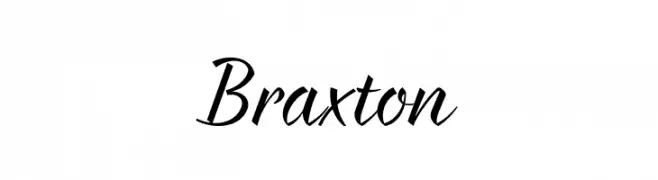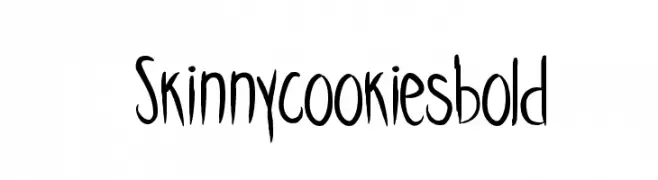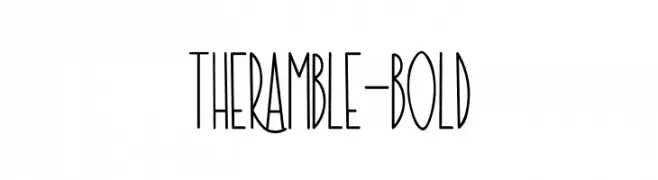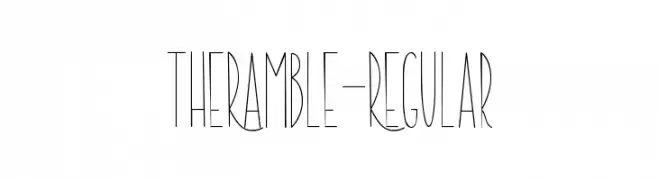
A classic, elegant font with a modern italicized style.
A playful, tall, and narrow font with a whimsical, hand-drawn style.
A playful, hand-drawn font with tall, narrow characters and a whimsical style.
A playful, hand-drawn font with tall, narrow characters and bold strokes.
A playful, bubbly font with a bold, hand-drawn style.
A playful, handwritten font with uneven strokes and a casual style.
An elegant script and serif blend with ornate uppercase and refined lowercase.